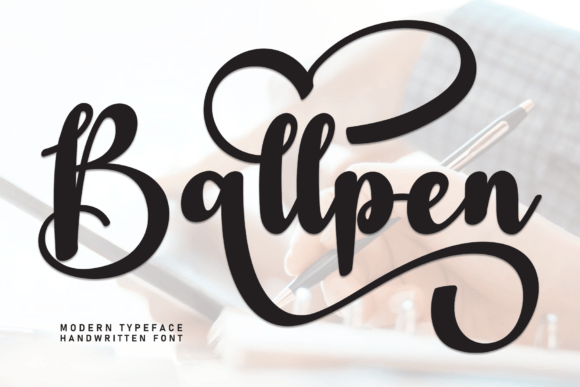
Introducing Ballpen Font - The Delightful Handwritten Masterpiece That Will Transform Your Digital Creations!
Step into the realm of captivating digital artistry with Ballpen Font, a script font family that oozes charm and personality. Inspired by the timeless allure of handwritten notes, Ballpen Font is the perfect choice for designers seeking a touch of warmth and authenticity in their work.
With its playful curves and whimsical strokes, Ballpen Font adds a unique, personal touch to your designs. Its charming imperfections create a sense of intimacy and connection, drawing your audience into your creative vision. Whether you're crafting wedding invitations, greeting cards, or eye-catching social media graphics, Ballpen Font will add a touch of magic that sets your work apart.
Beyond its aesthetic appeal, Ballpen Font is also a versatile workhorse, идеально suited for a wide range of digital applications. Its legible and easy-to-read nature makes it perfect for UI/UX design, ensuring that your users have a seamless and enjoyable experience. And with its extensive character set, including multilingual support, Ballpen Font can effortlessly adapt to your global audience.
From heartfelt wedding invitations to playful social media posts, Ballpen Font is the perfect font for adding a touch of charm and authenticity to your digital creations. So, why settle for ordinary when you can have extraordinary? Embrace the Ballpen Font experience today and unlock a world of creative possibilities!